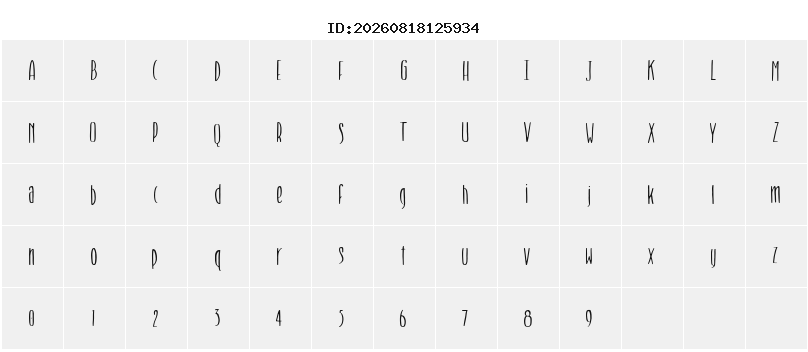
• Font Name: Smoothie
• Full Font Name: Smoothie
About Smoothie.ttf
Smoothie.ttf is a modern, elegant sans-serif font designed for ultimate readability and visual harmony. Perfect for branding, headlines, web design, and print materials.